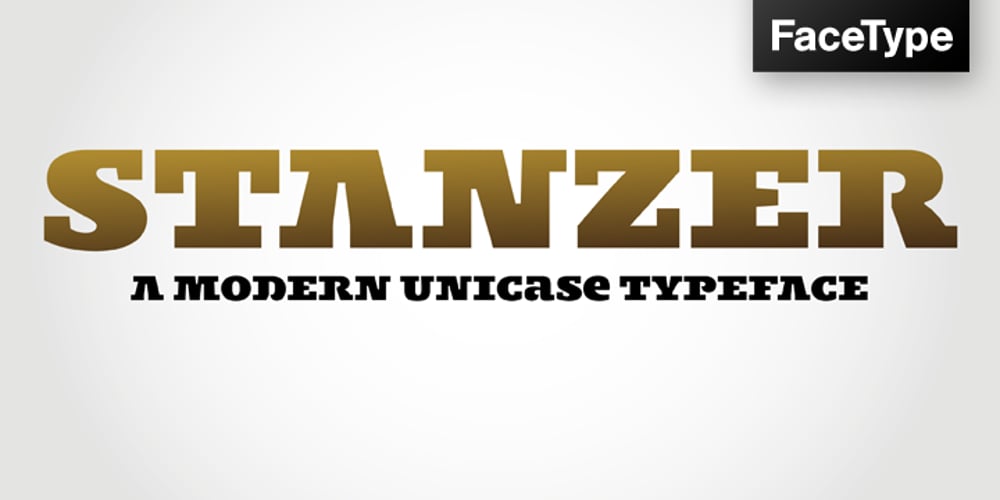
Stanzer Font Family was designed by Igor Labudovic, Michael Hager and published by FaceType. Stanzer contains 3 styles and family package options. Stanzer is an interpretation of wood type combined with the idea of modern stencils. Instead of cutting every letter, we are presenting an example of how a modern stencil typeface could look like, as we have come to the conclusion that almost every letter works without cutting it. Stanzer is a Unicase typeface, available in three OpenType weights: Black, Shadow and Block. Stanzer first started as part of our diploma 2010 (it was called Stanley at that time). The basic idea behind this typeface is that it is fully stencil usable, and, unlike other stencil fonts, does not require any bridges (except for the O and Q). Almost every letter can be sprayed without inserting planks. However, Stanzer also offers the display weight Block, which is only suitable for print or online usage.